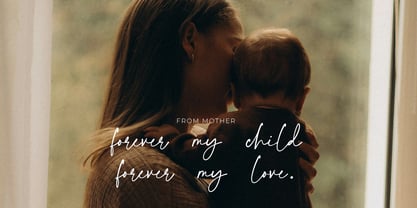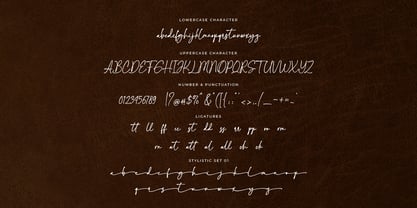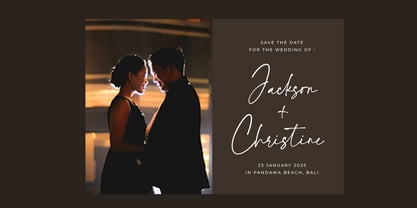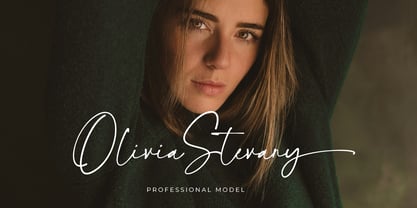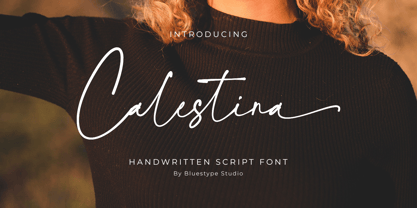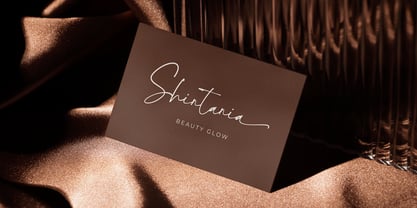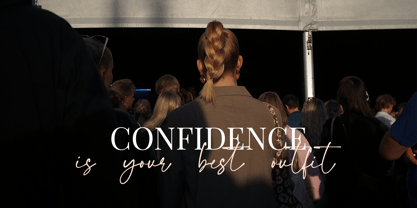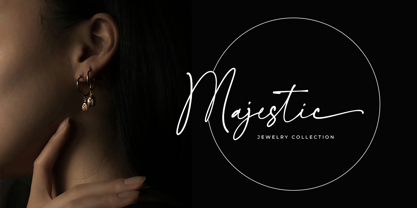
Calestina
par Bluestype Studio
La famille de polices Calestina a été conçue par Jefri Dwi Alfatah et publiée par Bluestype Studio. Calestina contient 1 styles. En savoir plus sur cette famille
Calestina is a graceful and stylish handwritten font that captures the essence of natural penmanship with a touch of elegance. Designed with smooth curves and well-balanced strokes, this font exudes warmth, charm, and authenticity, making it a perfect choice for various creative projects.
Concepteurs: Jefri Dwi Alfatah
Fonderie: Bluestype Studio